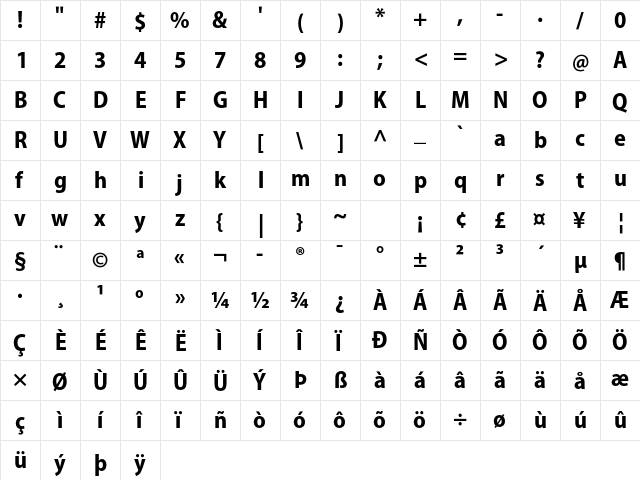
Myriad Pro Bold SemiCondensed
| Designer | Robert Slimbach and Carol Twombly |
Design Context for Myriad Pro Typeface
Myriad Pro takes a measured approach to typography — its balanced proportions and neutral character make it a reliable workhorse for both digital and print work. Its bold stroke weight gives it real presence on the page. Its narrow stance lets it pack a punch even in space-constrained designs.
Pro Tip: Pair Myriad Pro with a font of contrasting weight or personality to build a more expressive typographic hierarchy.